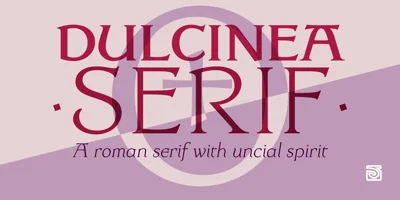
Dulcinea Serif Font
Dulcinea Serif Font is perfect for romantic literature publications, classical poetry collections, vintage love letter designs, elegant wedding stationery, historical romance book covers, Spanish-inspired restaurant branding, traditional manuscript reproductions, chivalric romance themes, heritage literary magazines, and sophisticated design projects that celebrate timeless romance and literary elegance.
What makes Dulcinea Serif Font exciting is its poetic ability to capture the essence of idealized love and literary romance through its graceful letterforms that seem penned by a passionate lover writing eternal verses to their beloved muse. This enchanting typeface embodies the spirit of Don Quixote's pure devotion with its elegant character that speaks of noble ideals, courtly romance, and the kind of timeless beauty that inspired countless literary masterpieces celebrating the transformative power of love and chivalric honor.
The Dulcinea Serif Font family includes regular, italic, and ornate display weights designed to maintain its romantic authenticity across various literary applications. Special romantic symbols, Spanish-inspired ornaments, and classical decorative elements complement the main typeface, while elegant spacing ensures optimal readability for both intimate poetry volumes and grand literary festival displays requiring sophisticated typographic presentation.
Dulcinea Serif Font offers literary enthusiasts access to typography that honors romantic tradition. Its lovingly crafted letterforms maintain exceptional legibility while projecting an image of literary sophistication and romantic idealism. The font's versatile nature works beautifully for both scholarly literary publications and personal romantic correspondence projects.
Honor literary romance with Dulcinea Serif Font and create designs that celebrate the eternal beauty of love while inspiring readers to believe in the transformative power of romantic idealism.